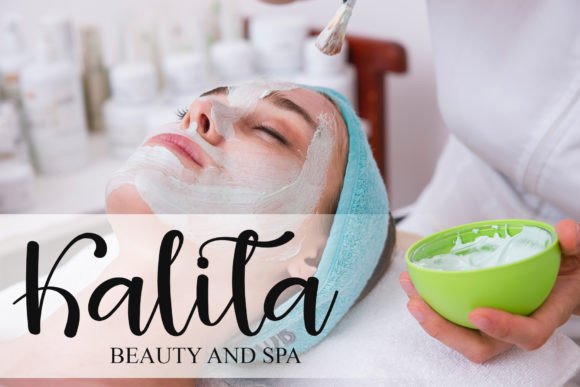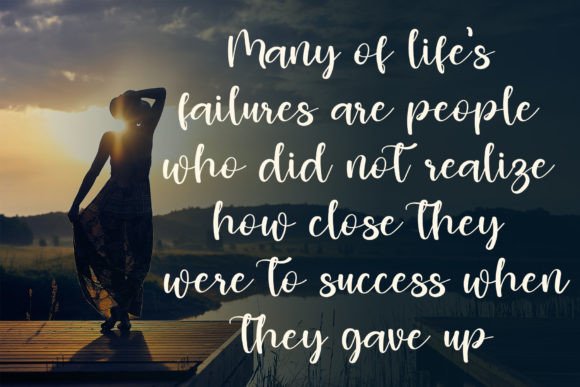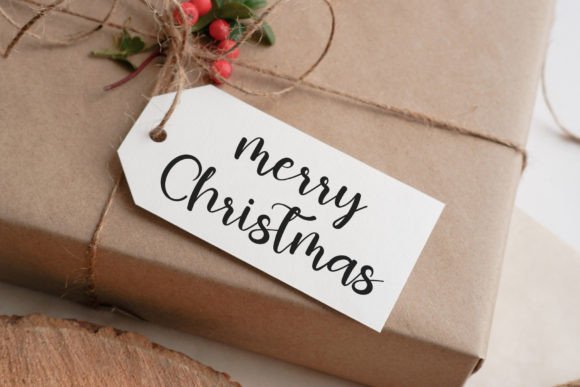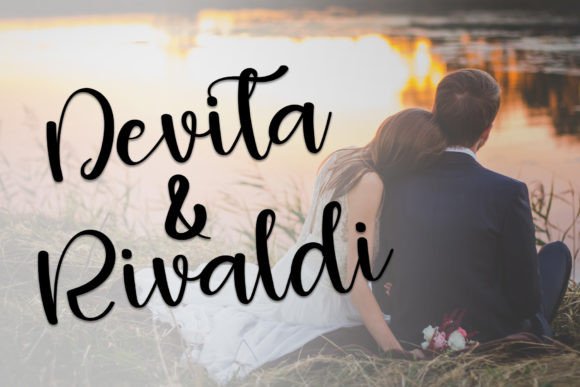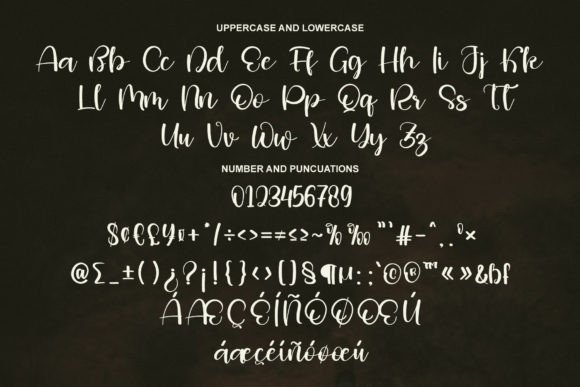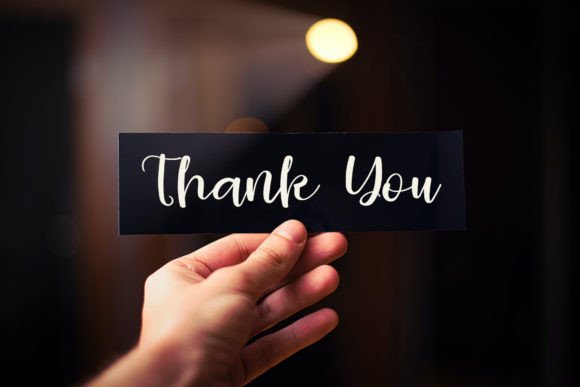
Fantasy Font: Elevate Your Designs with Elegance and Sophistication
In the world of typography, few fonts capture the essence of classic calligraphy with a modern twist as beautifully as Fantasy Font. This stylish handwritten font is designed to bring a touch of timeless elegance to your projects, making it an impeccable choice for designers and crafters looking to add a layer of sophistication to their work.
The Inspiration Behind Fantasy Font
Fantasy Font draws its inspiration from the traditional art of calligraphy, a method of writing that emphasizes beauty, elegance, and precision. The font’s creator aimed to capture the fluidity and charm of classic calligraphy while infusing it with a contemporary atmosphere. The result is a font that feels both nostalgic and refreshingly modern.
Key Features of Fantasy Font
- Contemporary yet Classic: Fantasy Font strikes the perfect balance between modern design principles and traditional calligraphic elegance. This blend makes it versatile enough for a wide range of projects, from wedding invitations to brand logos.
- Balanced and Varied: One of the standout features of Fantasy Font is its balanced and varied design. The font includes multiple weights and styles, allowing designers to play with textures and hierarchies within their work. This variability ensures that your projects stand out with a unique flair.
- Impeccable Form: The design of Fantasy Font pays close attention to detail, ensuring that each letterform is not only aesthetically pleasing but also highly legible. This focus on form makes it an excellent choice for both headings and body text.
How to Use Fantasy Font Effectively
To make the most out of Fantasy Font, consider the following tips:
- Mix and Match: Combine Fantasy Font with other fonts to create a dynamic visual hierarchy. Its elegant nature pairs well with simple sans-serifs or modern serifs.
- Play with Weights: Utilize the different weights of Fantasy Font to add depth and emphasis to your designs. Lighter weights for body text and heavier weights for headings can create a visually appealing contrast.
- Customize: Don’t be afraid to tweak the font size, color, and spacing to fit the specific needs of your project. Fantasy Font’s versatility allows for a high degree of customization.
Fantasy Font stands out as a sophisticated and versatile typeface that can elevate any design project. Its blend of classic calligraphy with a contemporary twist makes it an excellent choice for designers and crafters aiming to infuse their work with elegance and a modern flair. Whether you’re working on a branding project, a wedding invitation, or a digital platform, Fantasy Font offers the perfect combination of beauty, legibility, and style to make your projects shine.